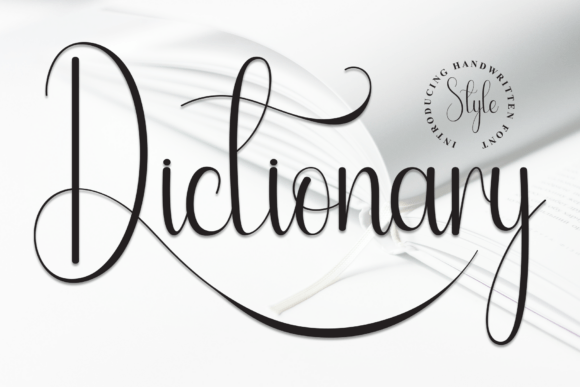
Dictionary Font: Elevate Your Designs with a Stylish Handwritten Script
In the world of typography, fonts play a crucial role in conveying the tone and personality of a design. A well-chosen font can elevate a project from ordinary to extraordinary, making it essential for designers to select a typeface that resonates with their creative vision. One such font that has gained significant attention in recent times is the Dictionary Font, a stylish handwritten script font that seamlessly blends modern elegance with a playful touch.
What is Dictionary Font?
Dictionary is a stylish handwritten script font that blends modern elegance with a playful touch. Its fluid strokes and charming curves bring a personal feel to any design. Ideal for logos, packaging, and invitations, this typeface adds warmth, sophistication, and creativity to every project.
Key Features of Dictionary Font
- Fluid Strokes: Dictionary Font boasts fluid strokes that give it a natural, handwritten feel. The smooth transitions between letters create a cohesive look that is both elegant and approachable.
- Charming Curves: The font’s charming curves add a playful touch to its overall appearance. These curves bring a sense of whimsy and creativity to the font, making it perfect for designs that require a personal touch.
- Modern Elegance: Despite its playful nature, Dictionary Font exudes modern elegance. Its clean lines and balanced letterforms ensure that the font remains sophisticated and versatile.
- Warmth and Sophistication: The combination of fluid strokes and charming curves gives Dictionary Font a warm and sophisticated feel. This makes it an excellent choice for designs that aim to convey a sense of luxury or refinement.
Creative Ways to Use Dictionary Font
Dictionary Font’s versatility makes it suitable for a wide range of design projects. Here are some creative ways to use this stylish handwritten script font:
- Logos: Create a memorable logo that stands out with Dictionary Font. Its unique blend of elegance and playfulness makes it perfect for branding projects that require a distinctive touch.
- Packaging: Add a personal touch to your product packaging with Dictionary Font. Its warm and sophisticated feel makes it an excellent choice for packaging designs that aim to convey a sense of luxury or eco-friendliness.
- Invitations: Make your invitations special with Dictionary Font. Its charming curves and fluid strokes create a beautiful, handwritten look that is sure to impress.
- Social Media Graphics: Elevate your social media graphics with Dictionary Font. Use it to create eye-catching posts, stories, and banners that reflect your brand’s personality.
- Web Design: Enhance your website’s typography with Dictionary Font. Its modern elegance and readability make it an excellent choice for headings, titles, and other design elements.
Typography Tips for Using Dictionary Font
To get the most out of Dictionary Font, consider the following typography tips:
- Pair with Neutral Fonts: Pair Dictionary Font with neutral fonts to create a balanced look. This will help the font stand out while maintaining readability.
- Adjust Font Size: Experiment with different font sizes to create visual hierarchy. Use larger font sizes for headings and smaller sizes for body text.
- Play with Colors: Dictionary Font looks great in various colors. Experiment with different color combinations to find the one that best suits your design.
- Use Ligatures: Take advantage of Dictionary Font’s ligatures to add a touch of elegance to your design. Ligatures can help create a more cohesive look by connecting letters.
Inspiration Gallery: Dictionary Font in Action
Here are some inspiring examples of Dictionary Font in action:
Dictionary Font is a versatile and stylish handwritten script font that can elevate any design project. Its fluid strokes, charming curves, and modern elegance make it perfect for logos, packaging, invitations, and more. By following the typography tips and inspiration gallery provided, you can create stunning designs that showcase the beauty of Dictionary Font. Download it now and bring a personal touch to your designs!